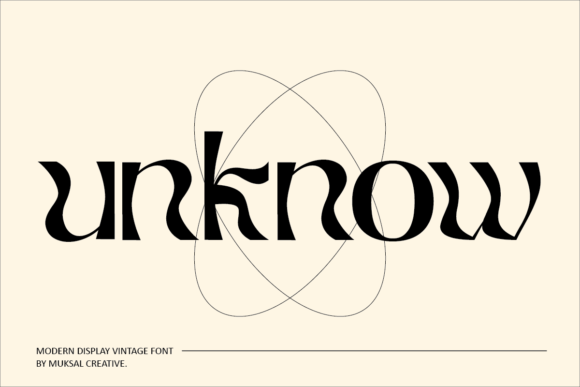
Embark on a Typographic Odyssey with Unknow Font: The Epitome of Poster Title Majesty
In the realm of visual communication, fonts reign supreme as the architects of meaning and the heralds of emotion. Unknow Font, a display font family crafted by the visionary Muksal Creative, emerges as a typographic masterpiece, perfectly poised to elevate your poster titles to unparalleled heights of sophistication and impact.
Unknow Font is not merely a collection of letters; it's an artistic symphony of strokes and curves, a visual tapestry woven with the threads of creativity and innovation. Each character, meticulously designed and lovingly rendered, exudes a timeless elegance that transcends the boundaries of time and trend.
Immerse yourself in the world of Unknow Font, where vintage charm and modern aesthetics intertwine to create a captivating visual narrative. Its subtle imperfections and carefully crafted details evoke a sense of nostalgia, while its clean lines and contemporary appeal ensure it remains firmly rooted in the present.
Unleash the boundless versatility of Unknow Font, a font that effortlessly adapts to a myriad of creative endeavors. Whether you're crafting editorial projects that demand attention or designing logos that exude timeless appeal, Unknow Font rises to the challenge, delivering results that surpass expectations.
Picture your poster titles adorned with the captivating allure of Unknow Font. Its bold presence commands attention, its graceful curves invite exploration, and its timeless elegance ensures that your message resonates with audiences far and wide.
Unleash your creativity and elevate your designs to new heights with Unknow Font, the ultimate font for poster titles. Let your imagination soar as you craft masterpieces that captivate and inspire, leaving an indelible mark on the minds of all who encounter them.